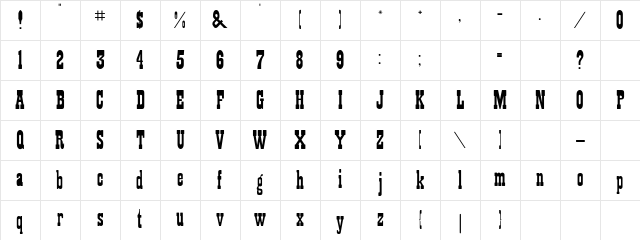
Playbill Regular
Complete Playbill Regular glyph index. Displaying only characters natively supported by Playbill Regular font.
Design Context for Playbill
Playbill is a composed and adaptable typeface that performs quietly and consistently across a wide range of design contexts.